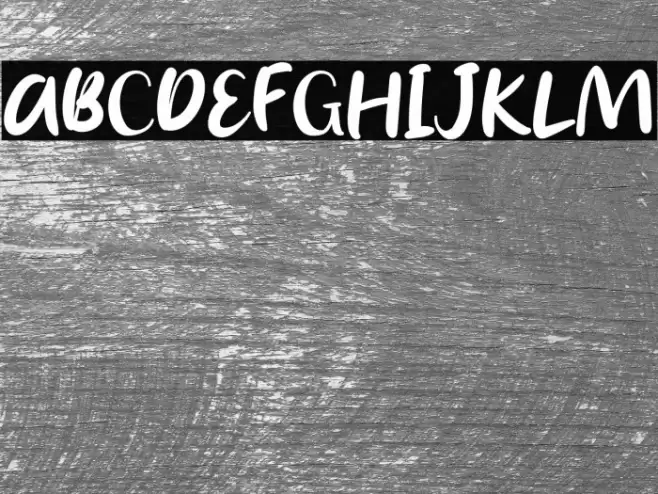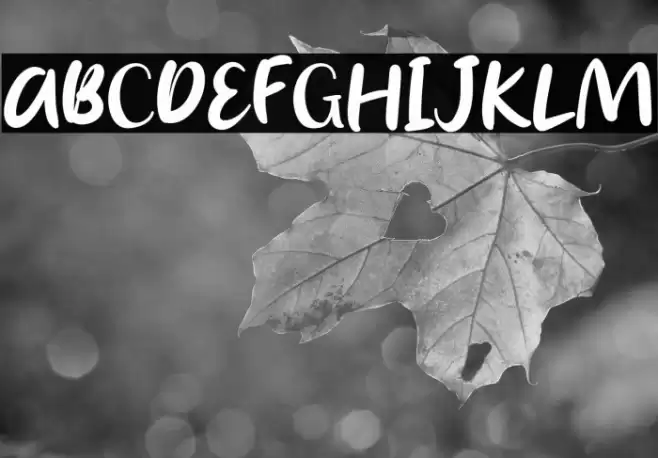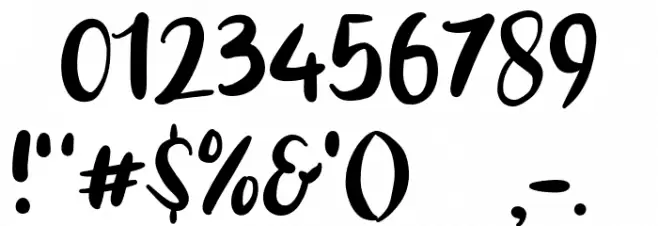
Briella Rin Font
Briella Rin Description
This font features a bold, handwritten style with a playful and energetic feel. The characters are slightly slanted, giving it a dynamic appearance. The strokes are thick and rounded, contributing to a friendly and approachable look. The uppercase and lowercase letters maintain a consistent style, with smooth curves and a casual flow. Numbers and special characters are equally bold and expressive, fitting seamlessly with the overall design. This font is perfect for projects that require a personal touch or a creative flair.
A bold, handwritten font with a playful and dynamic style from Uncategorized fonts.
- Font: Briella Rin
- Proposed Projects: Ideal for greeting cards, invitations, branding, social media graphics, and creative posters.
- Use Case: Logos, Headlines, Creative projects